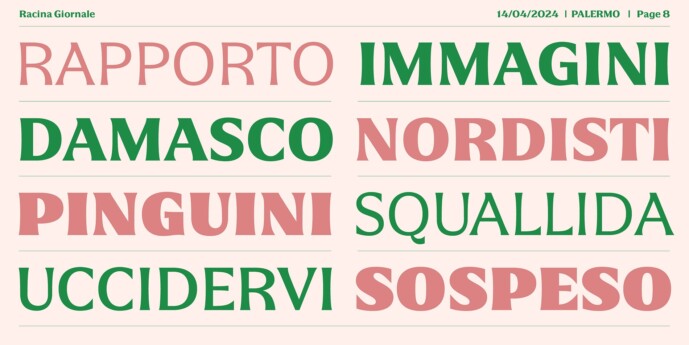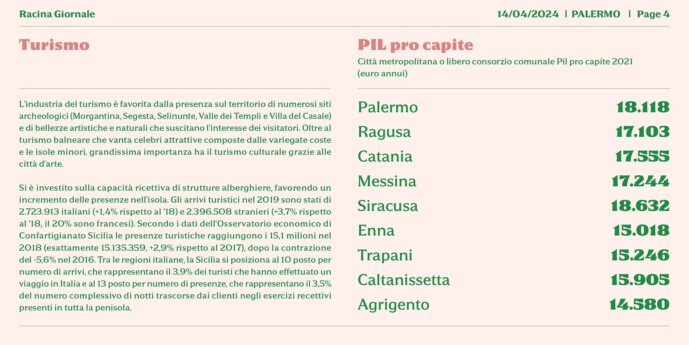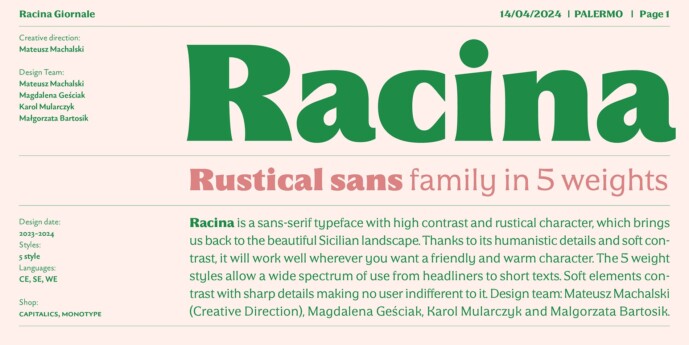
Racina Font
Designer: Machalski
Racina Font is a serif typeface with high contrast and rustical character, which brings us back to the beautiful Sicilian landscape. Thanks to its humanistic details and soft contrast, it will work well wherever you want a friendly and warm character. The 5 weight styles allow a wide spectrum of use from headliners to short texts. Soft elements contrast with sharp details making no user indifferent to it. Design team: Mateusz Machalski (Creative Direction), Magdalena Geściak, Karol Mularczyk and Malgorzata Bartosik.